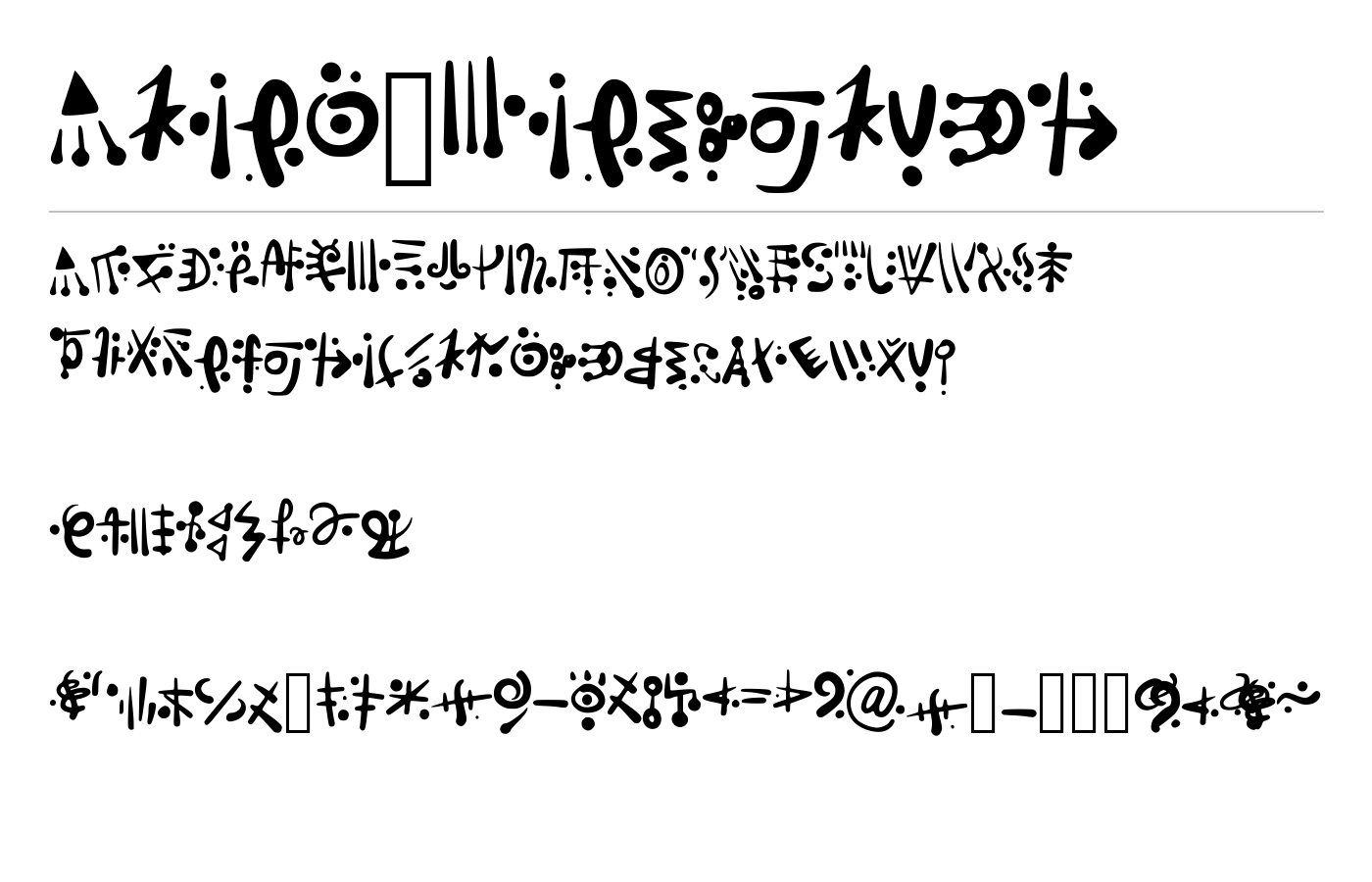
Alien_Hieroglyph Font is a unique and decorative display typeface designed to mimic ancient or otherworldly symbols. Its playful and abstract shapes are highly detailed and complex, making it perfect for creative projects that call for a mysterious, futuristic, or tribal vibe. This font works best in titles, logos, or themed posters where it can add an exotic and imaginative flair without the need for traditional readability.
Alien_Hieroglyph Font
About Alien_Hieroglyph Font